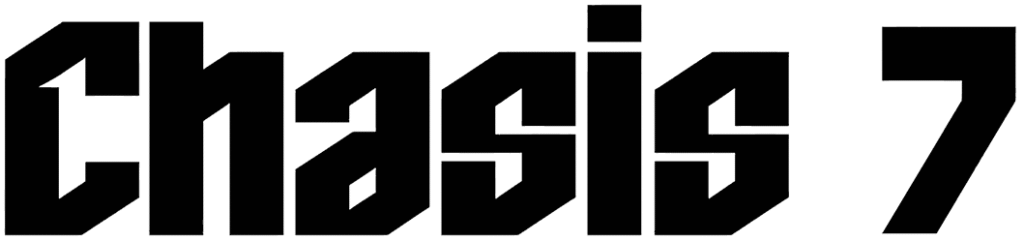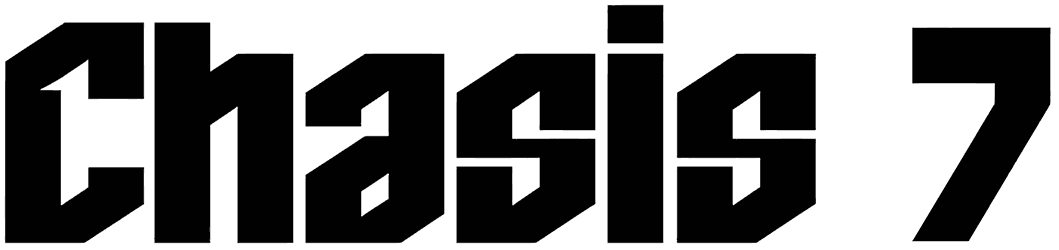
Chasis 7 Font
Chasis 7 font feels like it was built for speed, machines, and layouts that don’t have time for soft little details. Its bold industrial shapes give every word a strong technical punch, almost like lettering pulled from a racing chassis, factory label, or action game interface. You get that tough, engineered mood without losing the clean readability a display font still needs.
Use this tech font for motorsport posters, garage logos, esports graphics, tech packaging, gym branding, or sci-fi title screens. Add carbon textures, red accents, metallic gradients, or tight tracking, and it starts looking properly performance-ready.